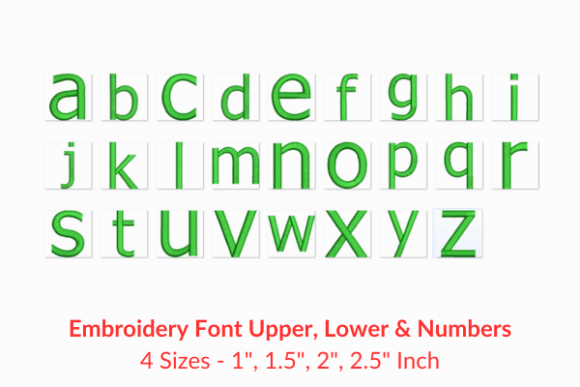
Fonts aren’t just for screens and print anymore — they can also bring personality to textiles, crafts, and fashion.
The Tahoma Fonts Embroidery Design is a great example of how a classic digital font can become a beautiful, versatile embroidery resource for crafters, sewists, and designers.
If you love the clean lines of the Tahoma typeface and want to add names, dates, or messages to your fabric creations, this embroidery font is both practical and stylish.
In this guide, we’ll explore what makes the Tahoma embroidery font special, how to use it, and why it’s a favorite among creative makers.
✏️ What is the Tahoma Fonts Embroidery Design?
Originally designed by Matthew Carter for Microsoft, Tahoma is a humanist sans-serif font known for:
• Clear, modern lines
• Excellent readability even at small sizes
• Balanced letterforms
When turned into an embroidery design, this font keeps its clean look but gains the tactile, textured charm of thread and fabric.
This embroidery design isn’t a digital font you type on your computer — it’s a collection of machine embroidery files for each letter and character.
You can use these files with embroidery machines to stitch words, initials, or quotes onto:
• Clothing
• Bags
• Towels
• Baby blankets
• Hats
• Home décor items
It’s a perfect way to add a professional, polished touch to handmade or personalized projects.
Each letter is a separate embroidery file, ready to be combined into words or monograms.
🌟 Why Crafters & Designers Love Tahoma for Embroidery
While Tahoma might seem like a standard sans-serif font on your screen, it has unique advantages when embroidered:
✨ Clarity & simplicity: Its even stroke widths and open shapes stitch cleanly on fabric.
🧵 Low stitch density: Makes the embroidery lighter, softer, and quicker to complete.
📏 Variety of sizes: Works for large back logos or tiny sleeve initials.
🎨 Neutral yet modern: Fits casual, corporate, or personal projects.
👶 Child-friendly: Letters remain legible even on small baby clothes or accessories.
Its balanced proportions mean your words stay easy to read, even on textured fabrics like towels or fleece.
Because Tahoma is so versatile, it works across casual, formal, and corporate settings.
✨ Why Choose an Embroidery Font vs. Printed Text
• Adds texture and dimension: Thread catches light in ways ink can’t.
• Durable: Machine embroidery holds up to washing and wear.
• Customizable: Choose any color, blend, or metallic thread.
• Personal touch: Each letter is literally stitched into your creation.
Embroidery transforms simple text into lasting art.
✂️ Final Thoughts: Simple, Stylish, Timeless
The Tahoma Fonts Embroidery Design turns a clean, modern digital font into a textured, tactile detail that elevates fabric creations.
Whether it’s a personalized gift, branded workwear, or home décor, this embroidery font makes adding names, dates, and quotes easy, elegant, and endlessly versatile.